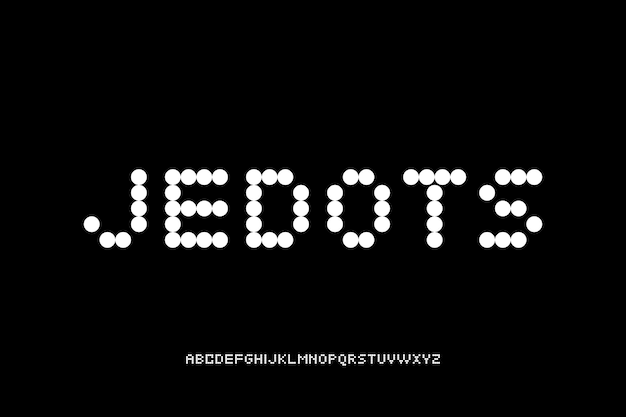
Digital Welcome Creative Vector Custom Display Alphabet Font Design
Display alphabet pattern font vector design suitable for headline poster banner and many more